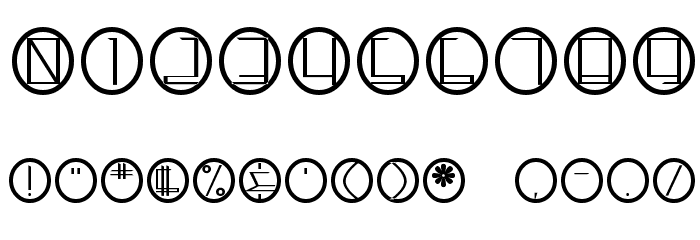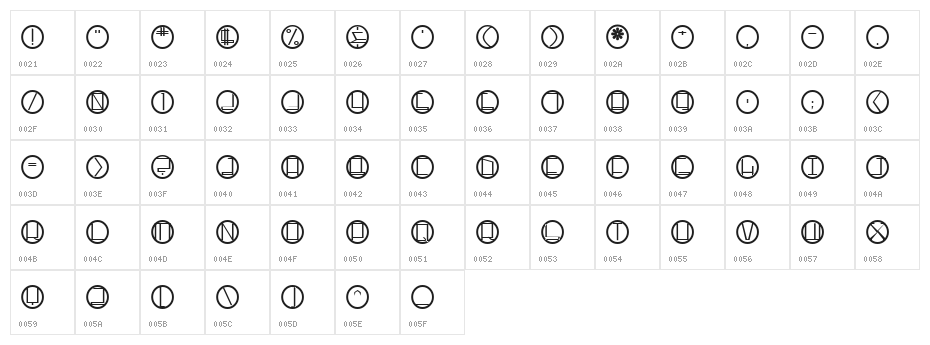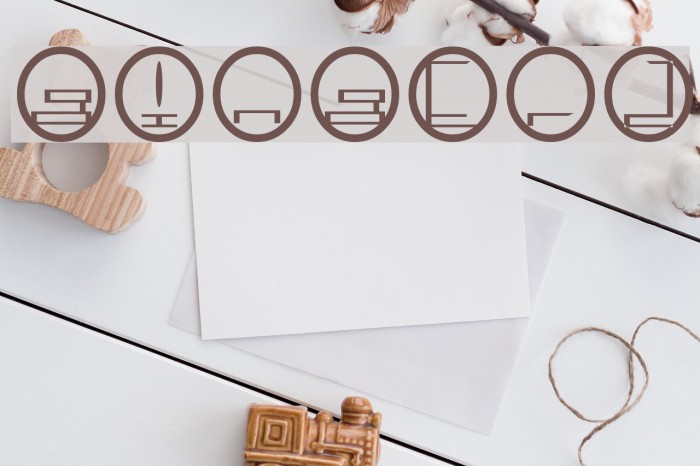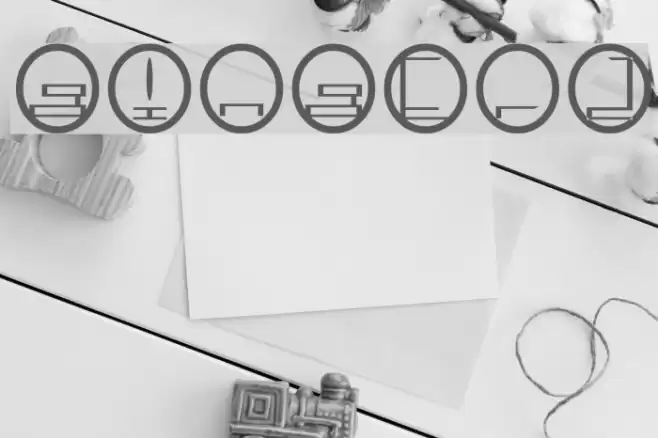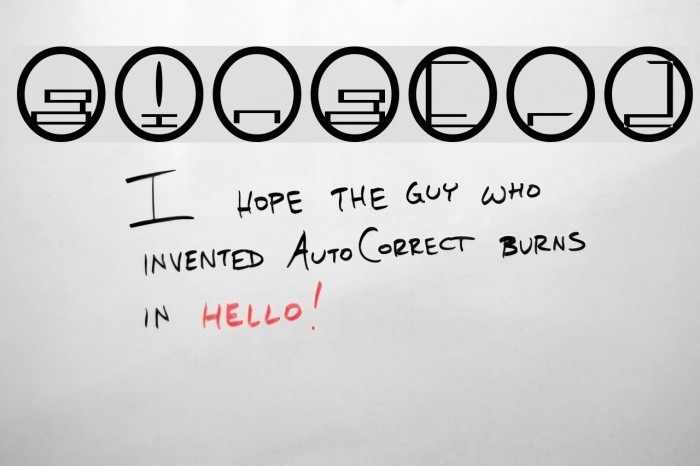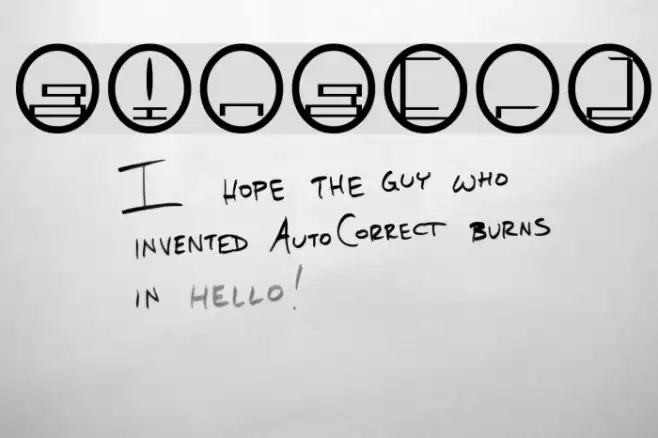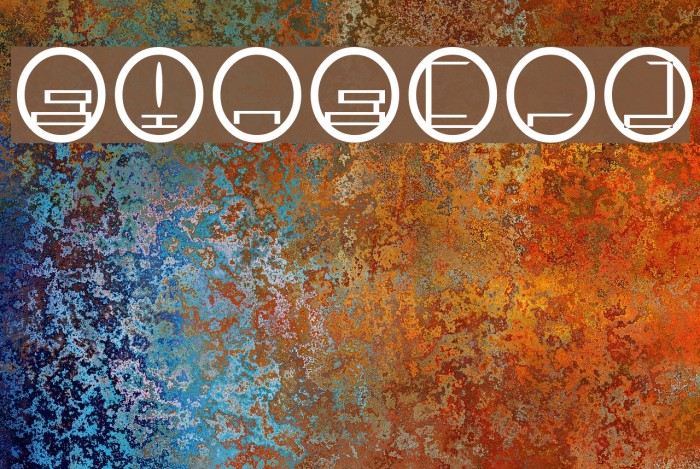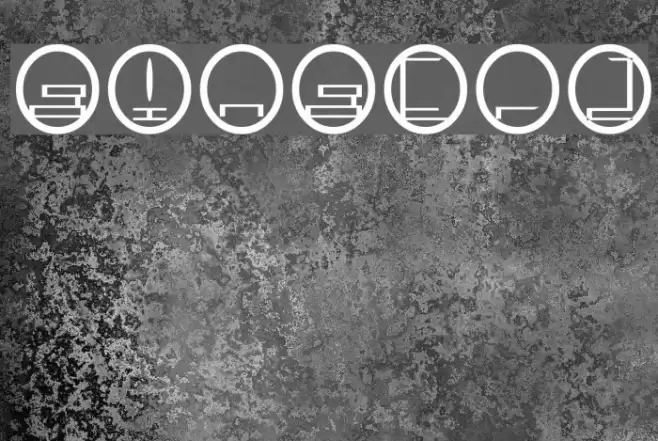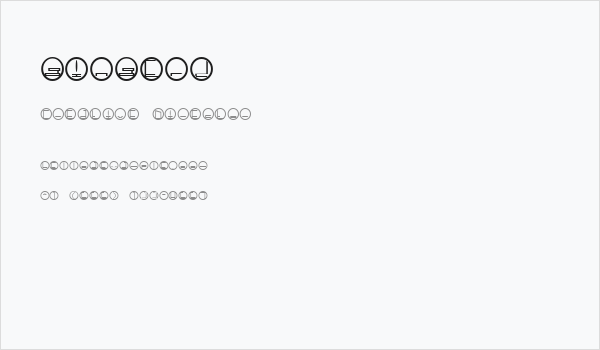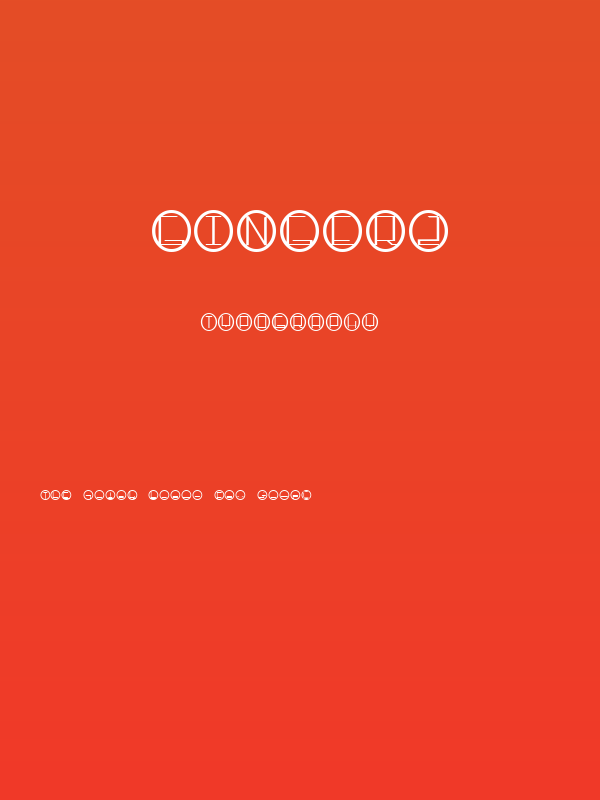
ginger2 Font
ginger2 Description
This font features a unique and modern design, characterized by its geometric shapes enclosed within circular outlines. Each character is crafted with a minimalist approach, using straight lines and angles to form the letters and numbers. The font's distinct style is both futuristic and artistic, making it stand out in any design project. The use of circles as a consistent element across all characters adds a cohesive and uniform look, while the simplicity of the lines ensures readability. This font is ideal for projects that require a contemporary and innovative aesthetic.
Use CaseLogos, Posters, Digital Media
Proposed ProjectsIdeal for branding, logos, posters, and digital media that require a modern and innovative look.